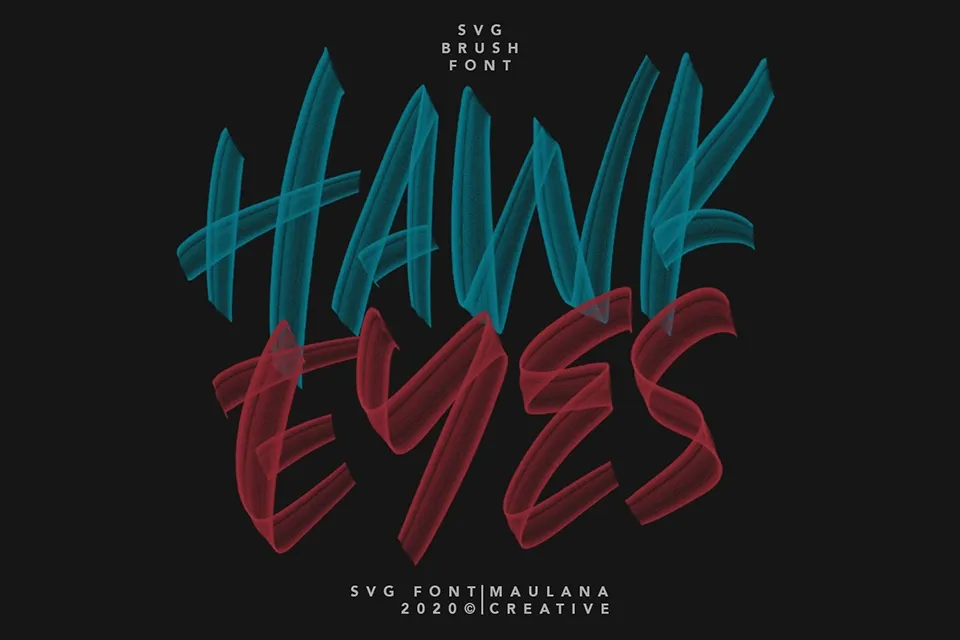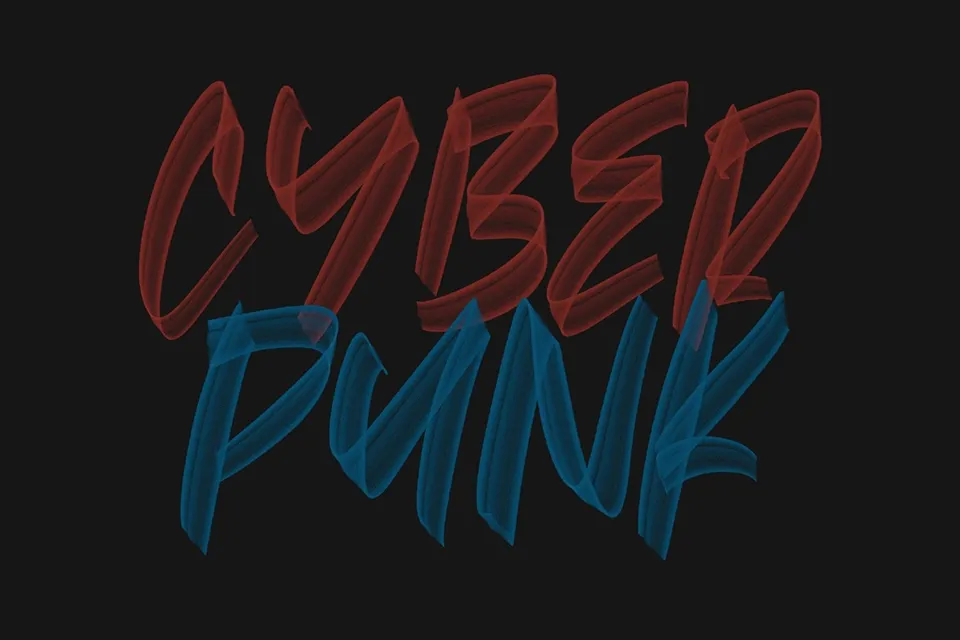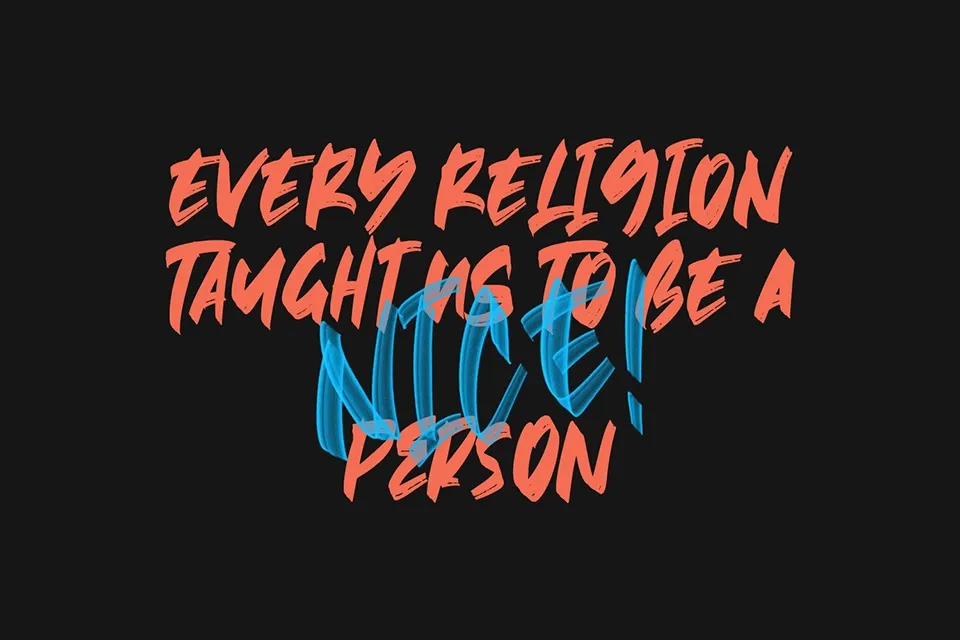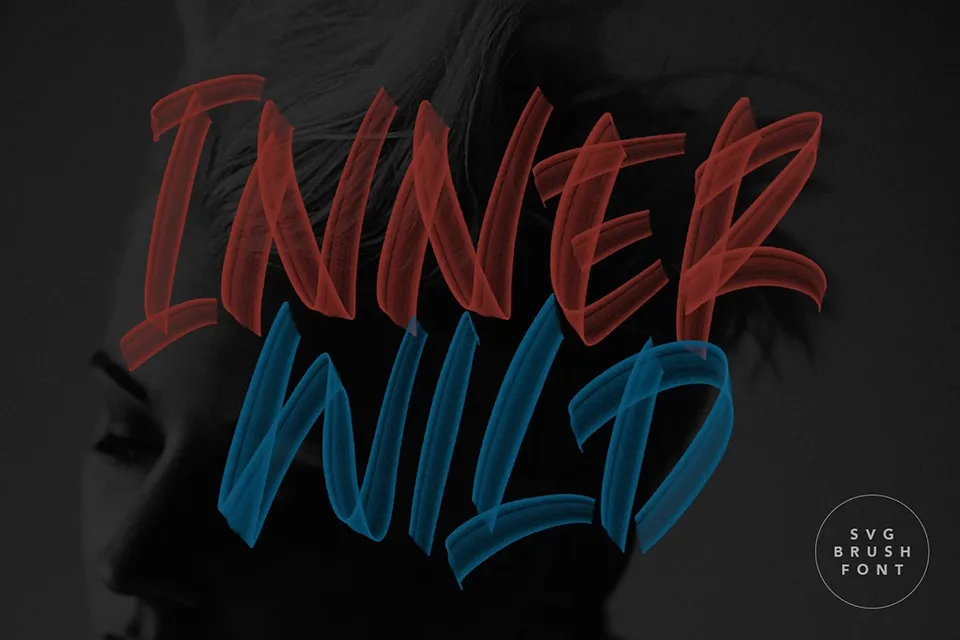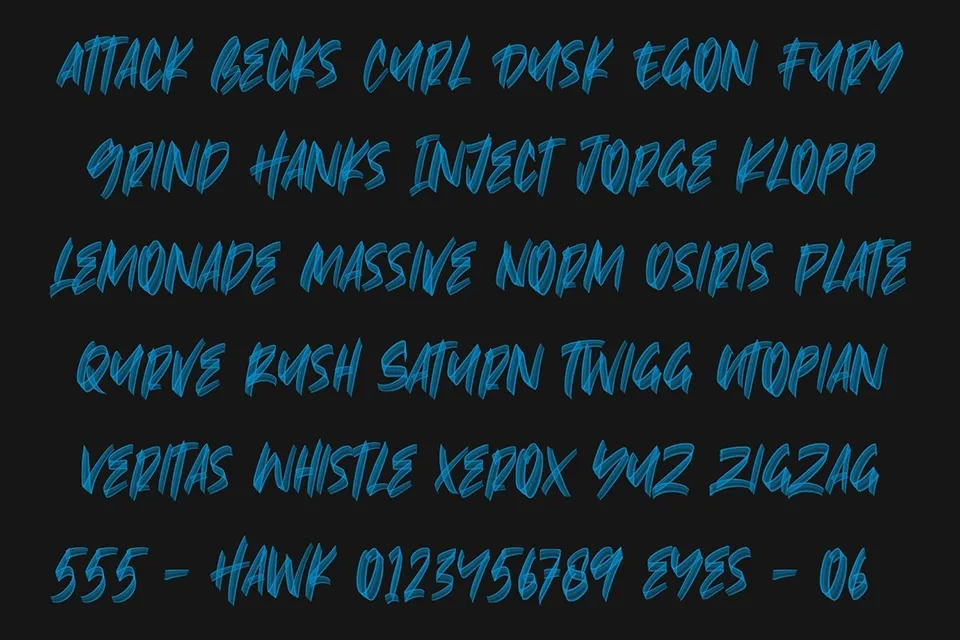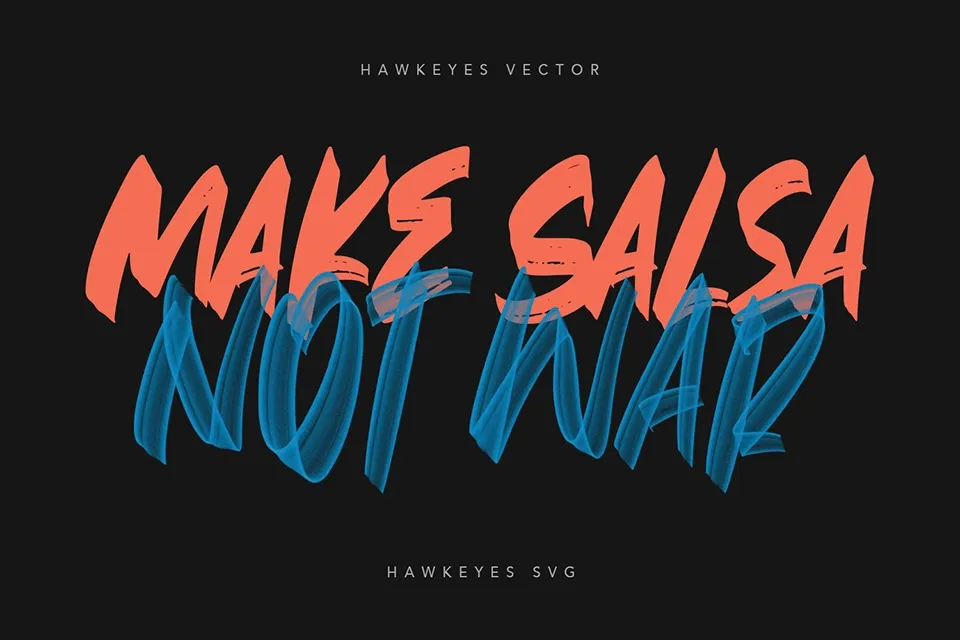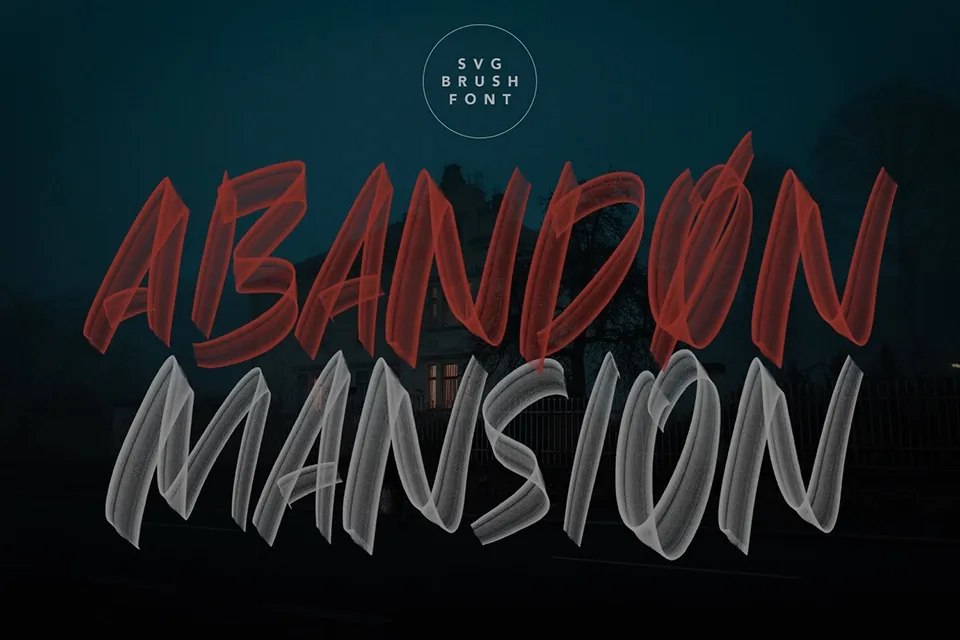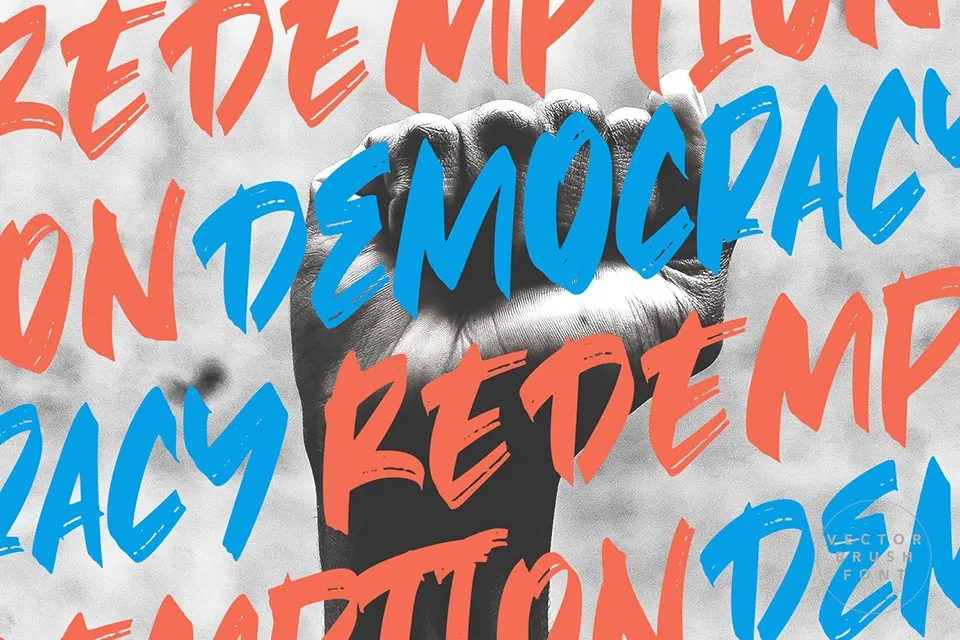
Hawkeyes Brush Font
Unleash your creativity with Hawkeyes Brush Font, a bold and expressive SVG brush typeface designed to make your designs stand out. Featuring dynamic strokes and textured details, this font captures the raw energy of hand-drawn lettering, making it perfect for impactful headlines, posters, branding projects, and artistic designs. The vibrant brush style adds a sense of movement and personality to your work, ensuring it grabs attention. Whether you’re crafting edgy logos or eye-catching social media graphics, Hawkeyes Brush Font delivers a unique and modern aesthetic that elevates your creative vision. Let your ideas soar with this powerful and versatile typeface!